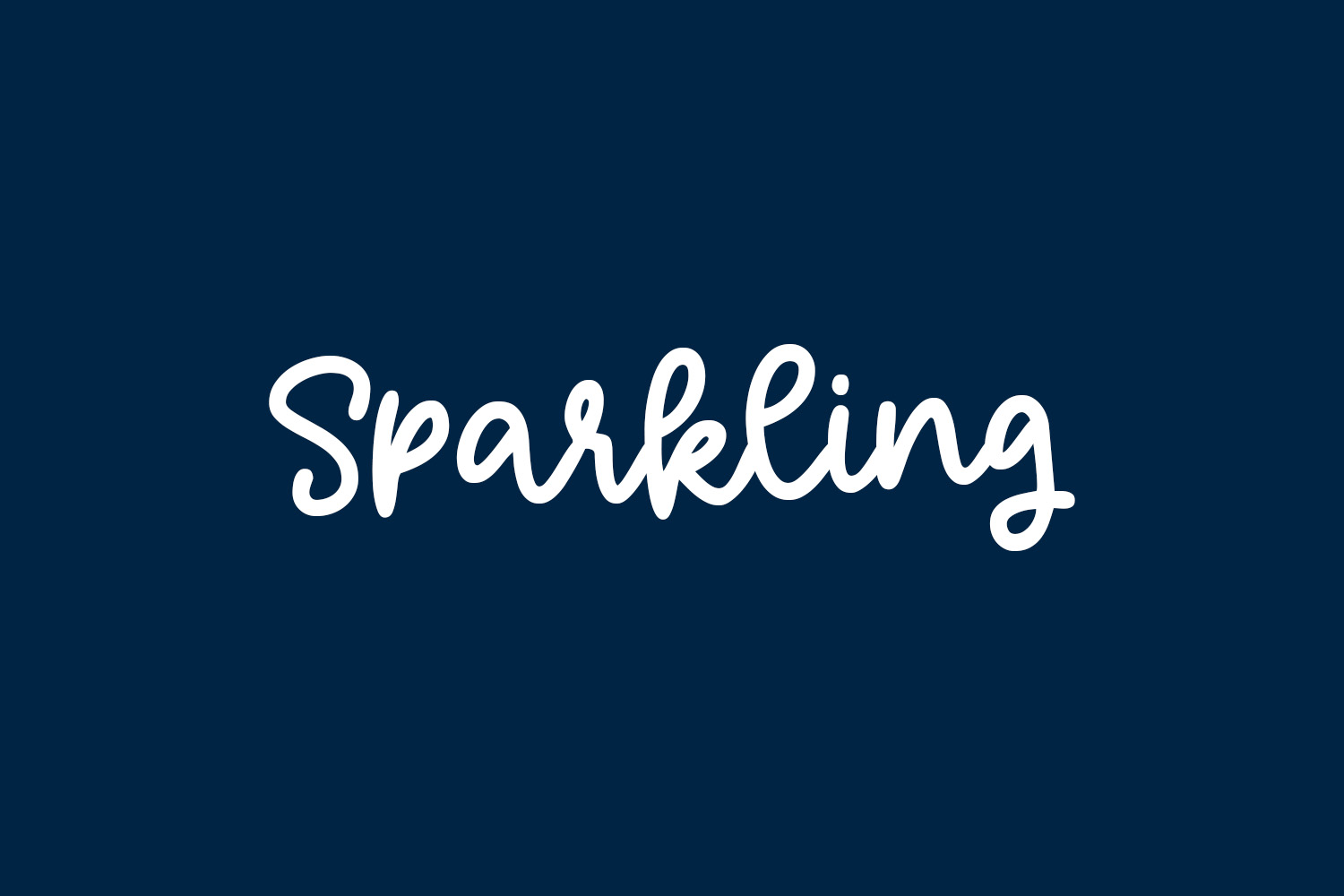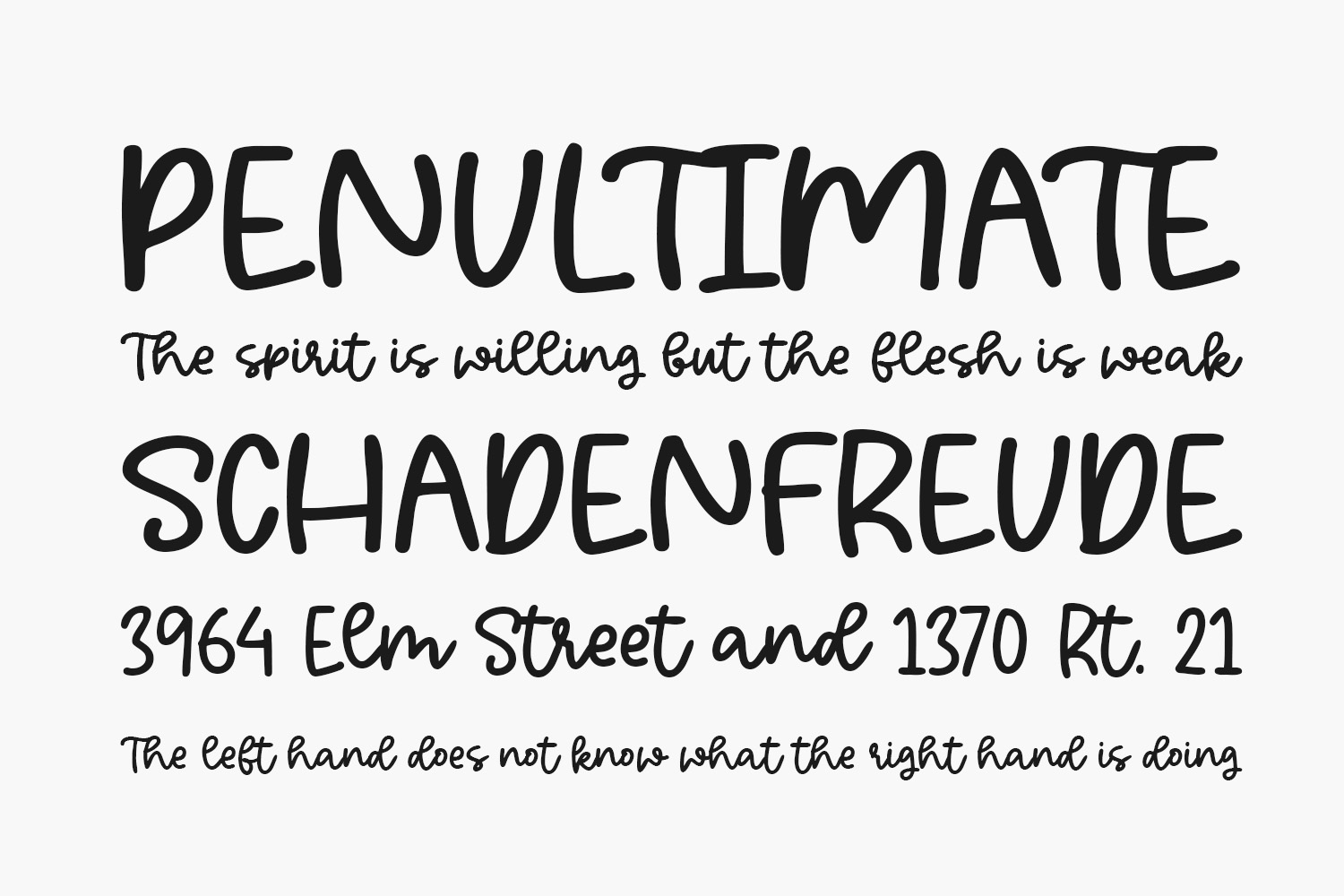
Sparkling Free Font is a sweet, all round, and flexible handwritten font. Warm, romantic, and jolly, this font will turn each of your project ideas into real works of art. Have fun with this beautiful font and explore its endless variations. Sparkling Free Font was designed by Olivetype and is free for personal use only. Please purchase the full version for commercial use.